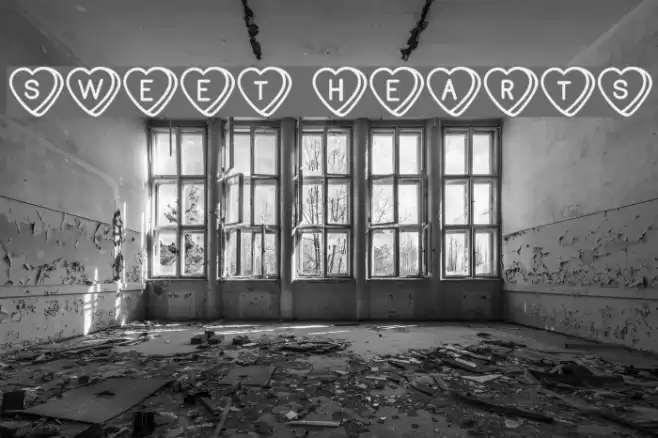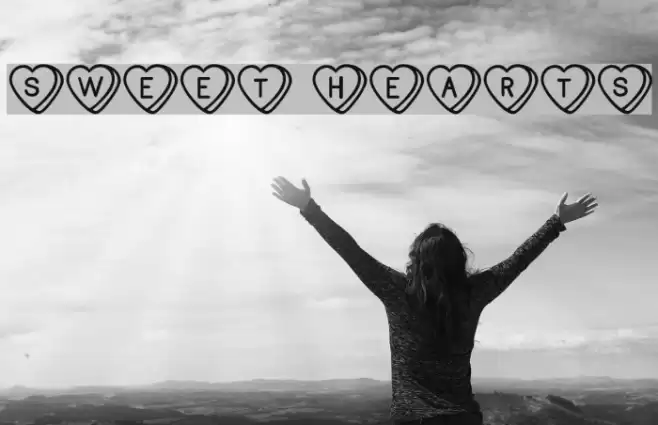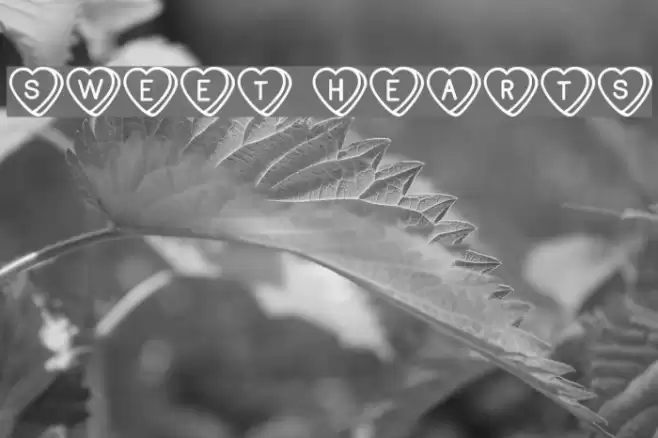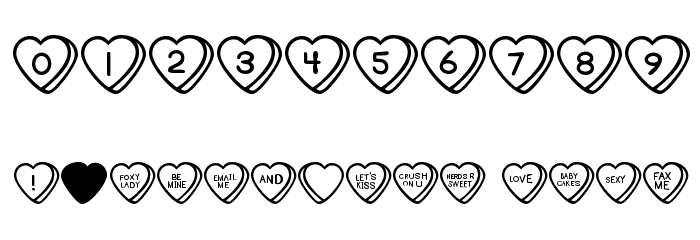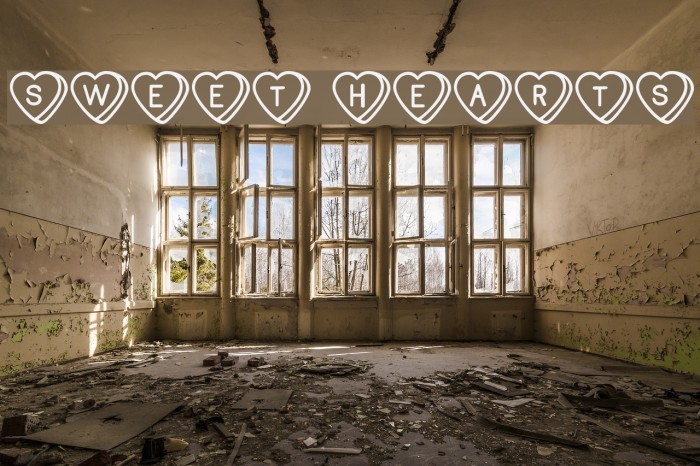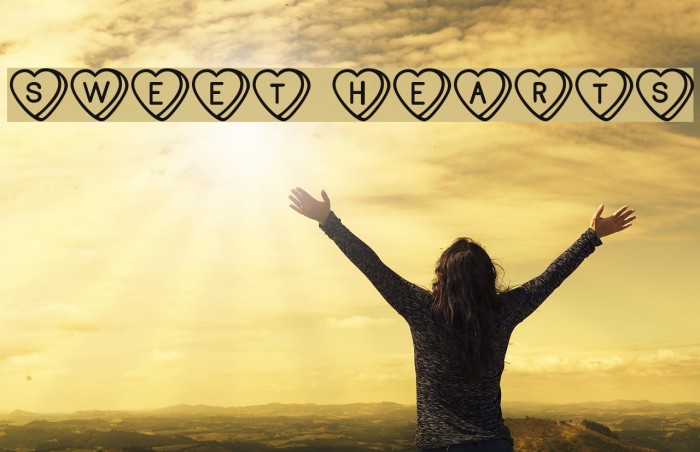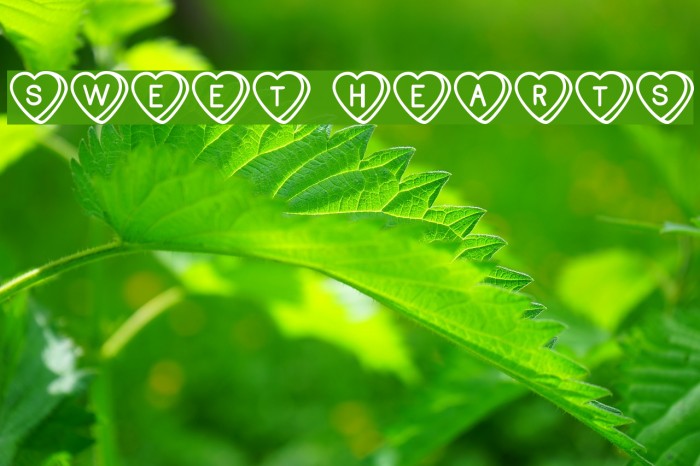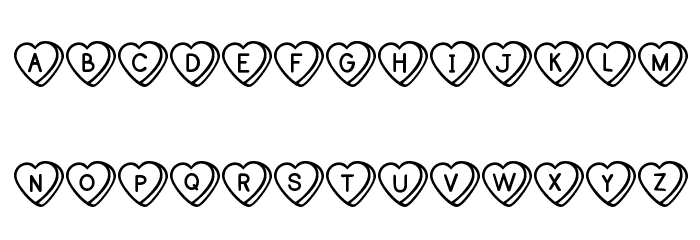
Sweet Hearts Font
Sweet Hearts Description
This playful and decorative font features characters enclosed within heart shapes, giving it a charming and whimsical appearance. Each letter and number is centered inside a heart, with a bold outline that enhances its visibility. The font is ideal for conveying messages of love and affection, making it perfect for Valentine's Day themes or romantic projects. The characters are evenly spaced within the hearts, ensuring readability while maintaining the decorative style. The inclusion of special characters and phrases like 'BE MINE' and 'LOVE' adds to its thematic versatility.
A decorative font with characters inside heart shapes, perfect for romantic themes from Uncategorized fonts.
- Proposed Projects: Ideal for Valentine's Day cards, wedding invitations, romantic social media posts, and themed party decorations.
- Use Case: Headlines, Logos, Themed Invitations